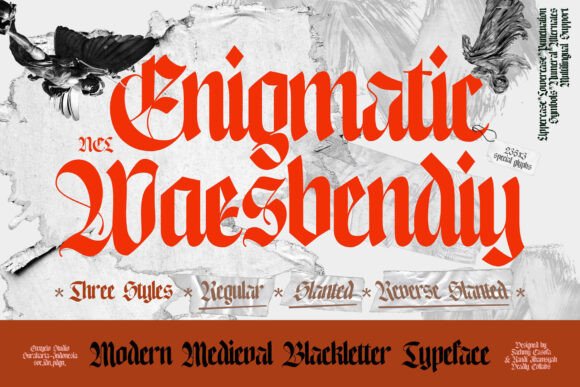
Enigmatic Waesbendiy Font
About the Enigmatic Waesbendiy Font
Introducing the Enigmatic Waesbendiy Font, a beautifully crafted typeface designed to elevate your creative projects. Introducing the NCL Enigmatic Waesbendiy, an alluring blend of modern and medieval aesthetics expressed in a unique Blackletter font style. Tailored expertly, these letters echo an inspiration drawn from the Middle Ages, accented with a contemporary flair. This font is an impeccable choice for creative endeavors of a medieval theme, or even modern designs seeking an eclectic, modern-classic fusion.
The NCL Enigmatic Waesbendiy is designed to enhance your projects, infusing a distinctive charm that will command attention. From an eye-catching website to an enticing poster, stand-out logo, or other design project, this font imprints a note of innovative elegance.
Additionally, the NCL Enigmatic Waesbendiy includes uppercase and lowercase formats, alongside numeral, punctuation, and symbols. It even accommodates alternates and offers extensive multilingual support. Immerse in the seamless blend of old-world charm and modern sophistication with the NCL Enigmatic Waesbendiy font.
Enigmatic Waesbendiy Font Usage Examples
Enigmatic Waesbendiy Font Example